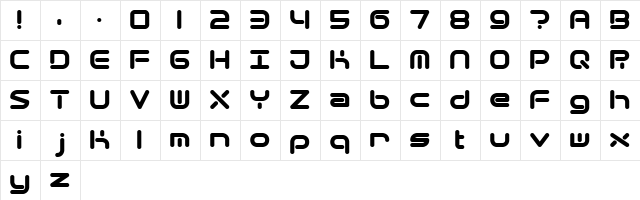
Quantum Round (BRK) Regular
Design Context for Quantum Round (BRK) Typeface
Quantum Round (BRK) softens its letterforms with rounded terminals, giving it an approachable, friendly quality that works well in consumer-facing and digital contexts.
A natural fit for tech startups, health and wellness brands, children's products, and friendly consumer apps.
Font Pairing: Pairs well with a rounded or humanist sans for body copy, maintaining the friendly tone without relying on Quantum Round (BRK) to carry extended reading.
Pro Tip: Pair Quantum Round (BRK) with a geometric sans for a balanced system — the rounded softness works as a warm counterpoint to harder-edged companions.